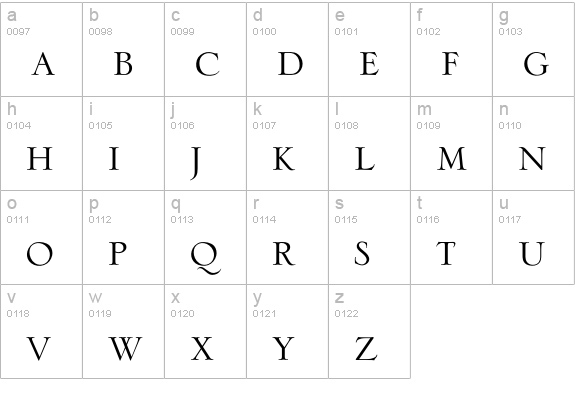
Torino Font Details
Torino font is a stunning typeface that effortlessly combines elegance and versatility. With its sleek and modern design, Torino is perfect for a wide range of creative projects, from logo designs to website headers and everything in between. Its clean lines and balanced proportions make it easy to read, while its unique letterforms add a touch of sophistication. What sets Torino font apart is not just its remarkable aesthetics, but also its accessibility. This font is available for free to all, allowing designers and creatives to bring their visions to life without any limitations. Whether you are a professional designer or a hobbyist, Torino font is a valuable addition to your font library. Downloading Torino font is a breeze, as it is freely available to download at FontsMarket.com. This user-friendly platform ensures that the font is just a few clicks away, making it accessible to anyone who wishes to enhance their design projects with this exceptional typeface. So why wait? Get your hands on Torino font today and let your creativity soar.